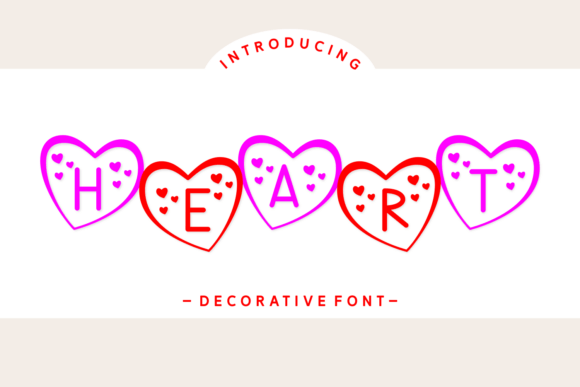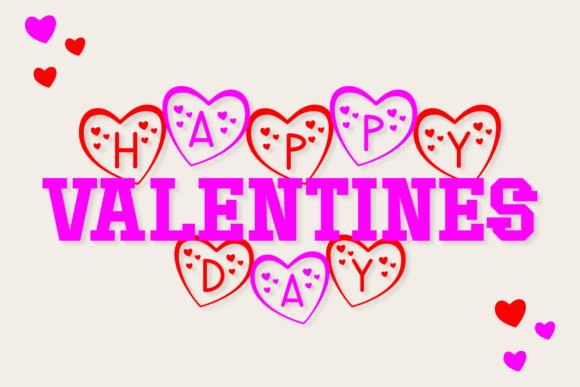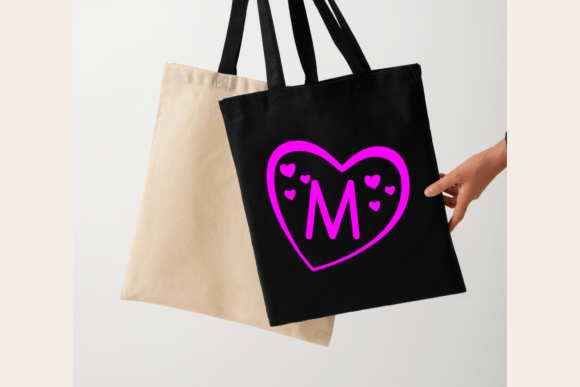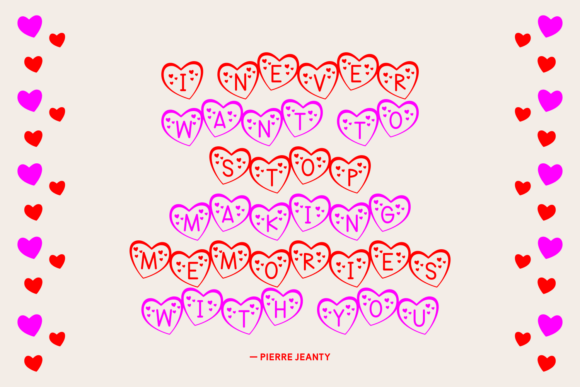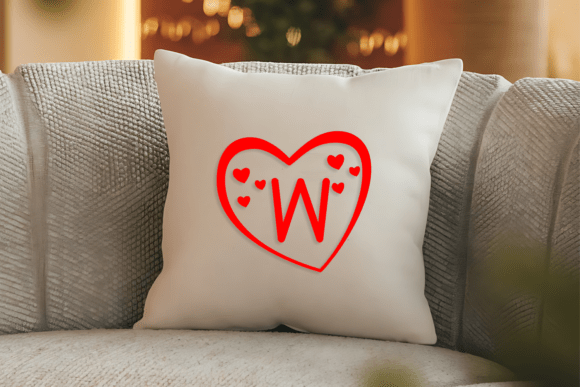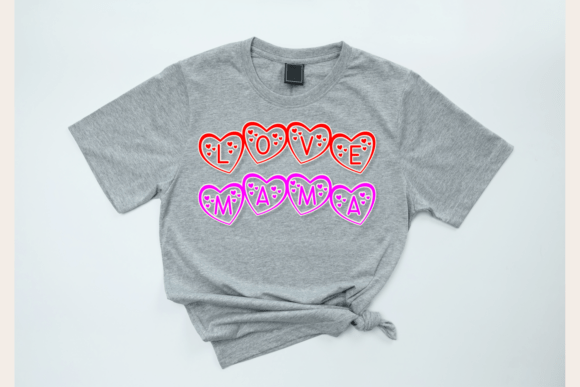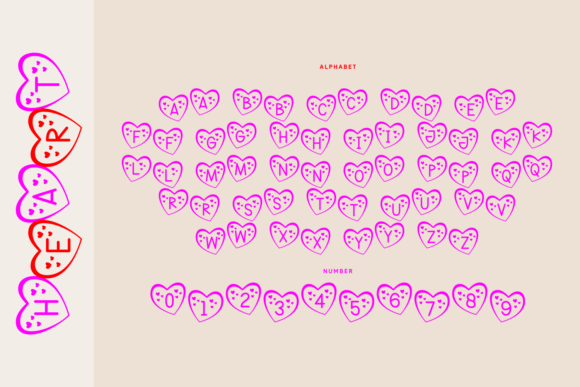
Discover the Magic of Heart Font: Elevate Your Creative Projects
Have you ever stared at a blank canvas, longing for the perfect font to bring your design to life? You’re not alone. We’ve all been there, searching for that elusive combination of style and whimsy to make our creations truly unforgettable. That’s where Heart Font comes in – a meticulously curated collection of typefaces designed to add a touch of elegance and playfulness to your artistic endeavors.
Whether you’re crafting Valentine’s Day cards, designing children’s puzzles, or creating high-end cosmetic product packaging, Heart Font has got you covered. This versatile collection of fonts is a treasure trove for designers, offering endless possibilities for creative expression. With Heart Font, you can breathe life into mesmerizing typography, bring logos to life with unforgettable flair, and set the stage for engaging T-shirt designs.
Key Features of Heart Font
- Font Family: Heart Font is a sans-serif font family designed specifically for digital use.
- Unique Characteristics: Heart Font features a unique, hand-drawn aesthetic with subtle rounded edges and a friendly feel.
Heart Font Review
As a designer, I’ve had the chance to work with the Heart Font, and I must say, it’s a unique and interesting choice. ✨ Here are some of its strengths:
- Expressive and emotive feel: The Heart Font is designed to evoke emotions, making it perfect for projects that require a touch of warmth and personality.
- Customization options: The font has a range of customization options, allowing you to fine-tune the look and feel to suit your project’s needs.
- High-quality design: The font is well-designed, with clear and readable characters that make it easy to use.
However, like any font, the Heart Font has its limitations. ⚠️ Here are some potential drawbacks:
- Limited versatility: While the font is great for emotive and expressive projects, it may not be the best choice for more formal or technical projects.
- Not ideal for body text: Due to its decorative nature, the Heart Font may not be the best choice for large blocks of body text.
- May require additional styling: Depending on the project, you may need to add additional styling to make the font work effectively.
Overall, the Heart Font is a great choice for designers who want to add a touch of personality and emotion to their projects. While it may have some limitations, its unique feel and customization options make it a valuable addition to any designer’s toolkit.
Tips for Getting the Most Out of the Heart Font
Use the Heart Font to create romantic and playful designs. It pairs well with pastel colors and floral patterns. Experiment with different font sizes and styles to create a unique look.
The Heart Font is perfect for Valentine’s Day designs, wedding invitations, and love-themed social media posts. You can also use it to create cute and quirky designs for blog posts and advertisements.